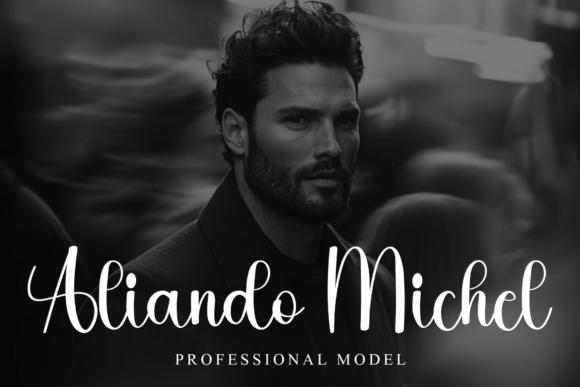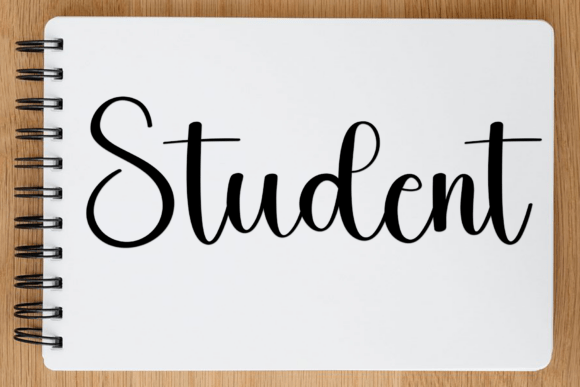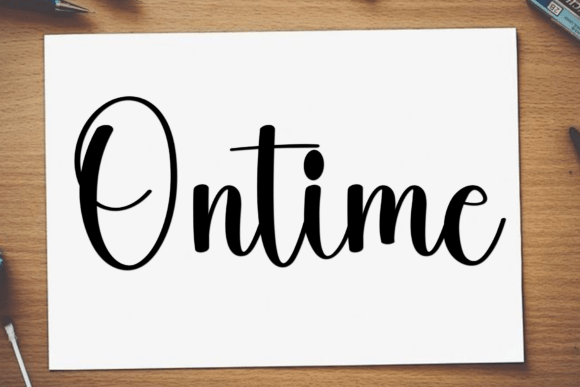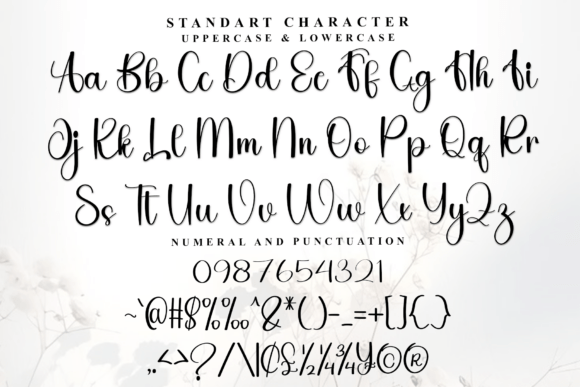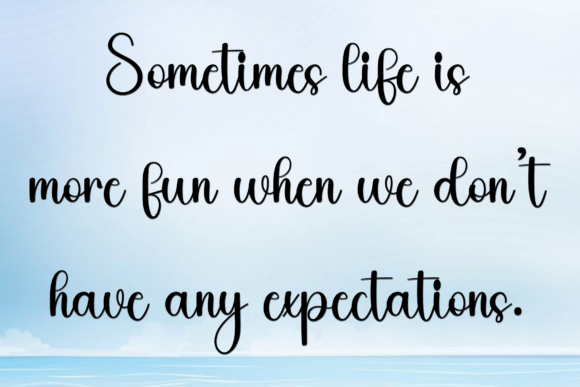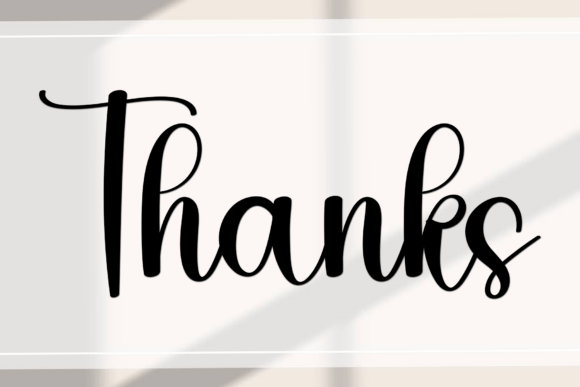
Introducing Anytimes Font: A Unique and Versatile Typeface for Creative Projects
In the world of typography, a good font can make all the difference in the success of a design project. If you’re a designer, crafter, or creative looking for a beautiful and eye-catching font to elevate your work, look no further than Anytimes Font. This stunning typeface is designed with a soft, unique touch that sets it apart from other fonts, making it perfect for a wide range of creative applications.
The Distinctive Characteristics of Anytimes Font
Anytimes Font boasts distinctive strokes that give it a special character, making it both meaningful and versatile for future use. Its unique design ensures that your text stands out, whether you’re working on a design project, crafting, or creating other types of artistic and creative works. With a wide range of characters, Anytimes Font offers endless possibilities for creative expression.
Anytimes Font is specifically designed to be perfect for design projects, crafts, and other creative works. Its natural font style and soft touch make it ideal for creating visually appealing text that captures the attention of your audience. Whether you’re designing a logo, brochure, or website, or crafting handmade cards, invitations, or gifts, Anytimes Font is the perfect choice.
One of the best things about Anytimes Font is its compatibility with various applications, including Windows and open-source platforms. This means you can use it across different devices and software, making it a versatile addition to your font library. From graphic design and digital art to crafting and DIY projects, Anytimes Font can be used to enhance a wide range of products, including:
- Business cards and stationery
- Brochures, flyers, and posters
- Websites and social media graphics
- Handmade cards and invitations
- Craft projects, such as sewing, woodworking, and jewelry making
Why Choose Anytimes Font?
So why choose Anytimes Font over other fonts? Here are just a few reasons:
- Unique and eye-catching design: Anytimes Font’s soft, unique touch sets it apart from other fonts, making it perfect for designers and crafters looking to create something special.
- Versatility: With its compatibility across different applications and platforms, Anytimes Font can be used for a wide range of creative projects.
- Wide range of characters: Anytimes Font offers a wide range of characters, making it perfect for creating complex designs and text.
Tips for Using Anytimes Font
Here are a few tips for getting the most out of Anytimes Font:
- Experiment with different sizes and colors: Anytimes Font looks great in a variety of sizes and colors, so don’t be afraid to experiment and find the perfect combination for your project.
- Pair with other fonts: Anytimes Font pairs well with other fonts, so try combining it with other typefaces to create a unique and interesting design.
- Use for headlines and body text: Anytimes Font is perfect for both headlines and body text, making it a versatile addition to your font library.
In conclusion, Anytimes Font is a beautiful and eye-catching font that is perfect for designers, crafters, and creatives looking to elevate their work. With its unique and distinctive design, versatility, and wide range of characters, Anytimes Font is ideal for a wide range of creative projects. Whether you’re working on a design project, crafting, or creating other types of artistic and creative works, Anytimes Font is sure to enhance your designs and make them appealing to many audiences.